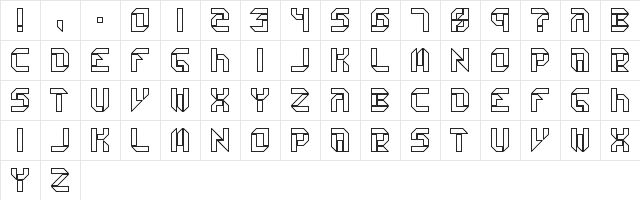
Collective O BRK Regular Font Preview
Collective O BRK Regular
Collective O BRK Regular Font Details
| Foundry | ƎIGMA FONTS |
| Designer | ƎIGMA FONTS - Brian Kent |
Design Context for Collective O BRK Typeface
Collective O BRK is a composed and adaptable typeface that performs quietly and consistently across a wide range of design contexts.